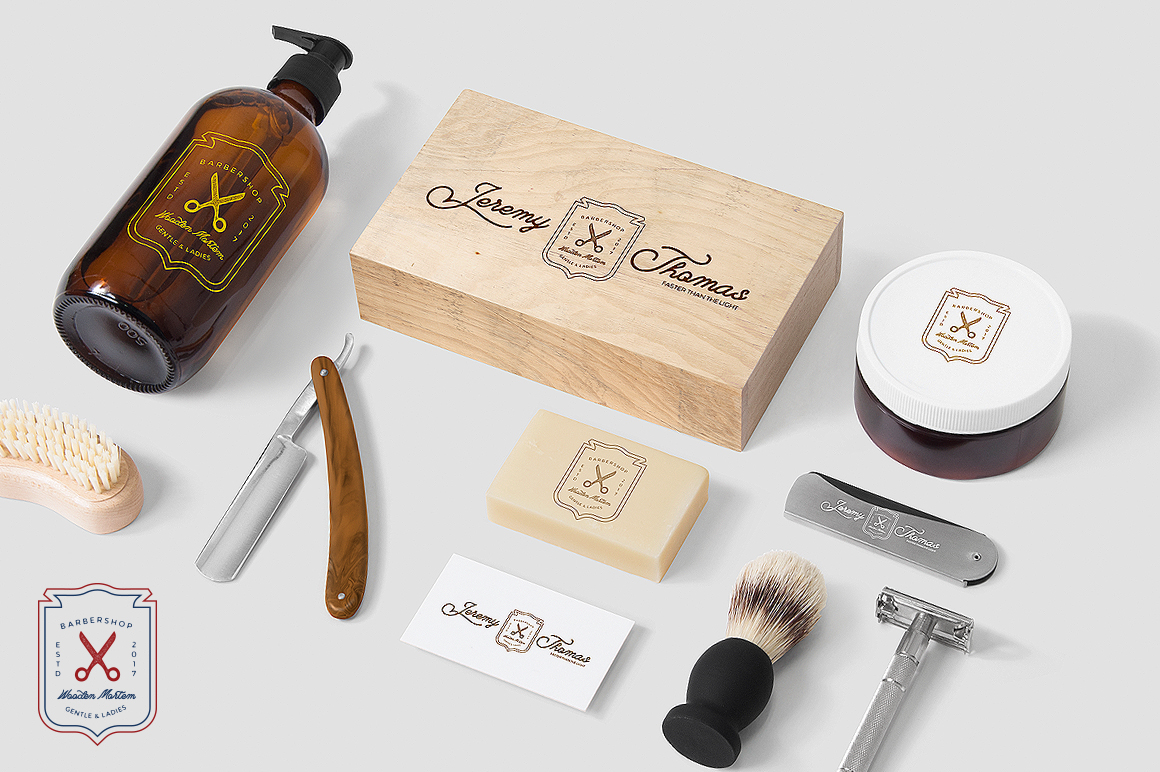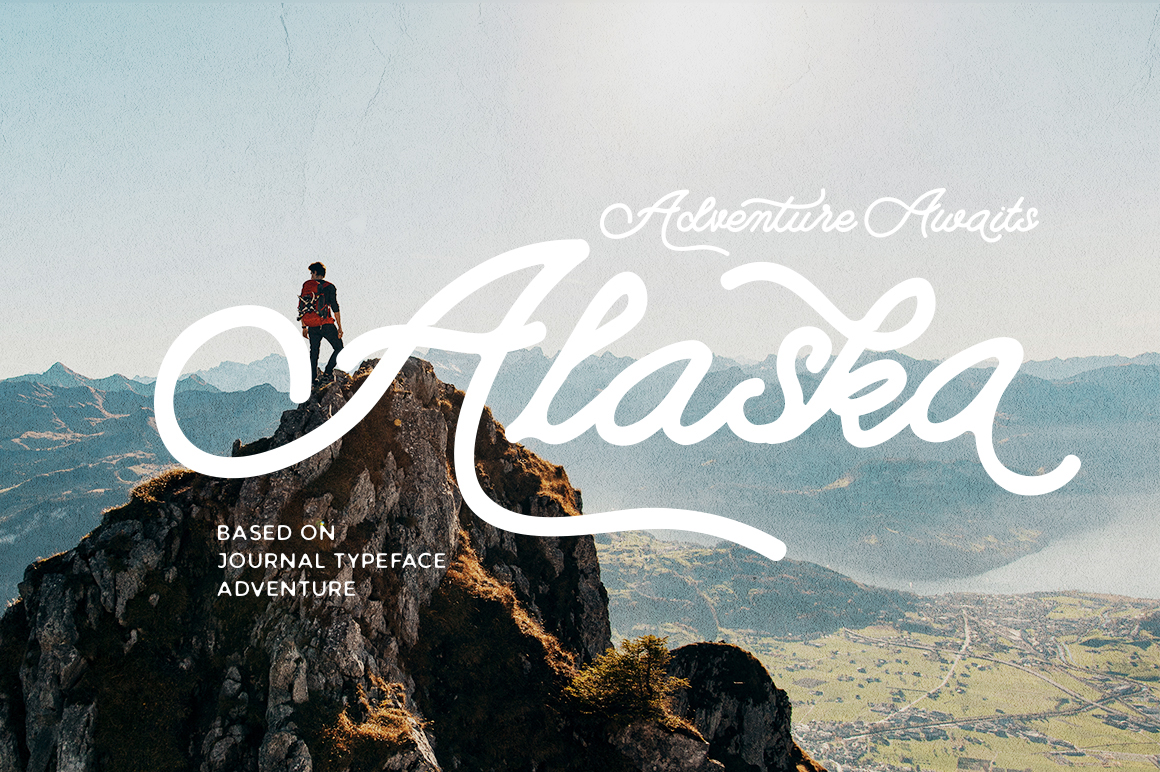
Campground Free Monoline Script
Campground Free Monoline Script, a font that is here today from the inspiration of nature, adventure, and vintage typeface. Now here, you can have one from the font duo, a Campground Script for free! This typeface is really great for logo, clothing brand, vintage looks and more!